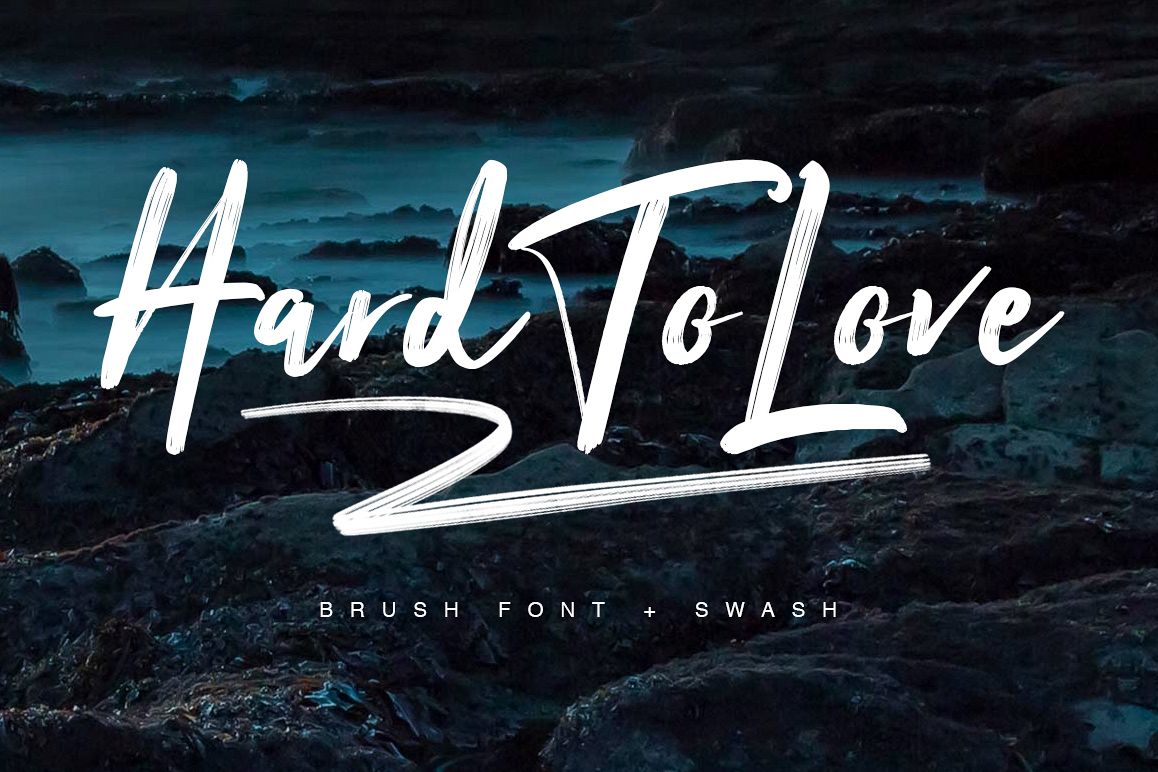
Give your designs an authentic handcrafted feel. "Hard To Love" is perfectly suited to signature, stationery, logo, typography quotes, magazine or book cover, website header, clothing, branding, packaging design and more.
- Swash Bonuses Included